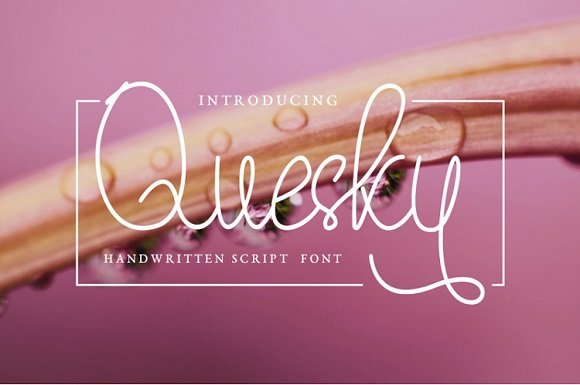
Quesky Handwritten Font
Quesky is a handwritten script. This font is very beautiful with character letters, numerals and coherent symbols. also has several alternatives & ligatures. This font is very suitable to be applied to many media such as invitation cards, titles, letterhead, signage, labels, news, signatures, logos, handicrafts, t-shirts, posters, badges, etc. This font also supports 17 languages (look at the preview image)